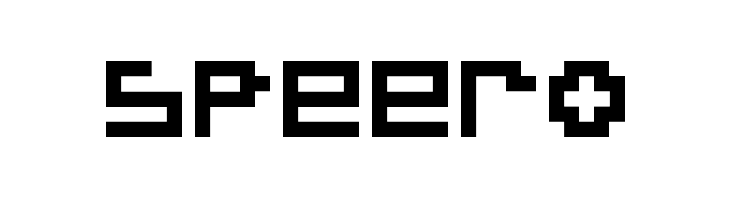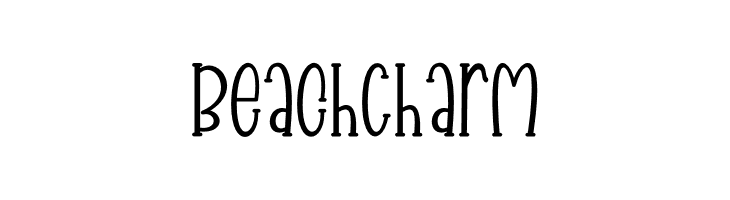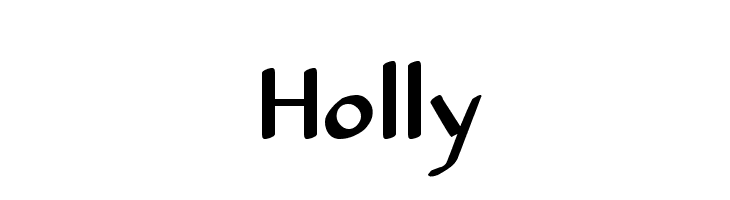
( Fonts by Supersemar Letter )
A playful, hand-drawn font with tall, narrow letters and a whimsical charm.
( Fontor )
A playful, rounded font with a friendly and approachable style.
An elegant, flowing script font with ornate uppercase and smooth lowercase letters.
A bold, geometric font with a futuristic and modern design.
( Fonts by www.crudfactory.com )
A classic serif font with elegant italic styling and moderate contrast.
( Fonts by Khurasan )
A bold, playful font with rounded, hand-drawn characteristics.
An elegant, high-contrast serif font with a graceful italic slant.
( Fonts by Darrell Flood )
A bold, italicized font with a futuristic and dynamic style.